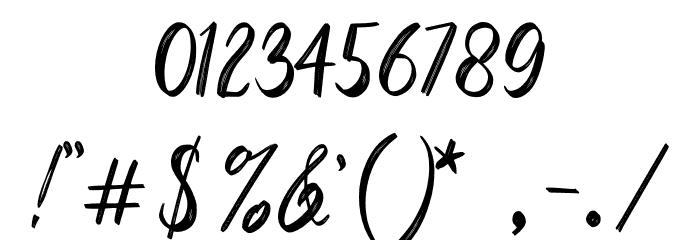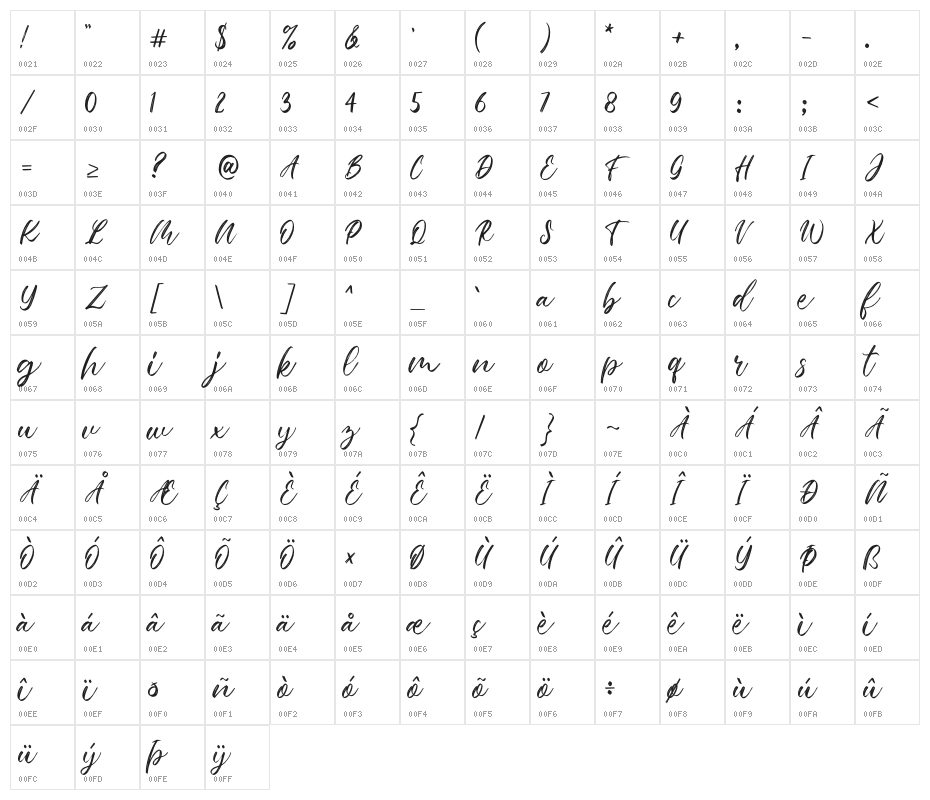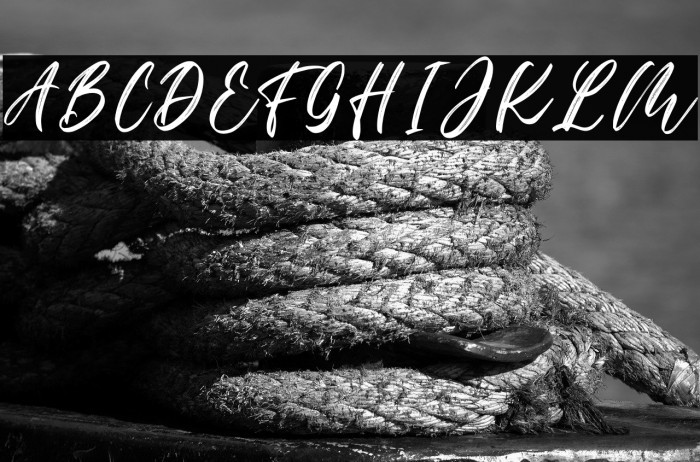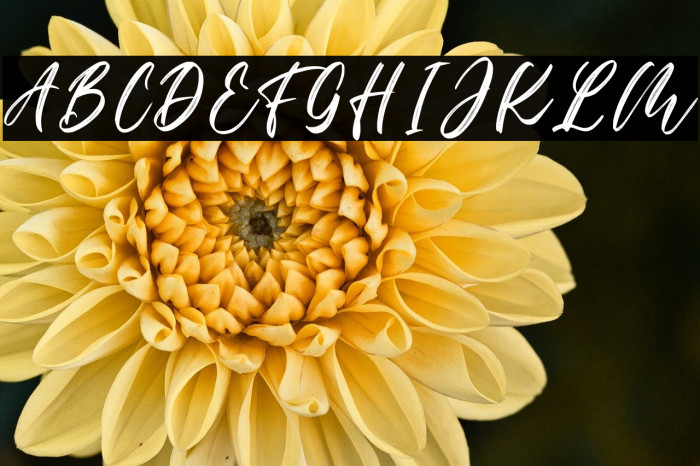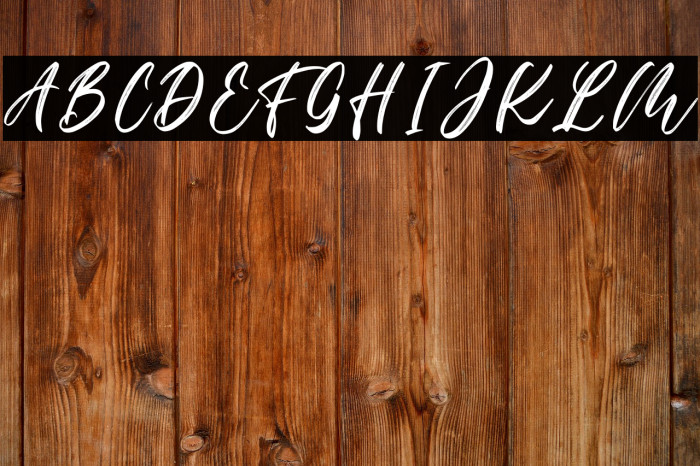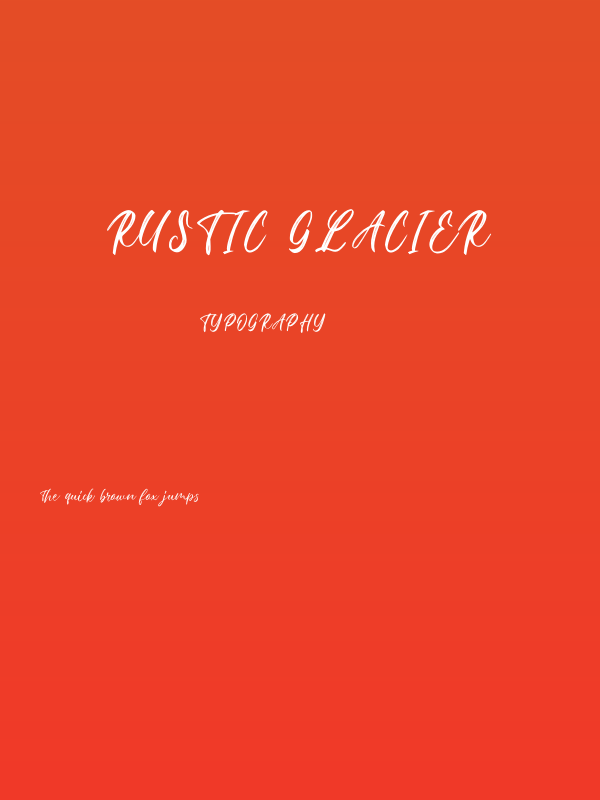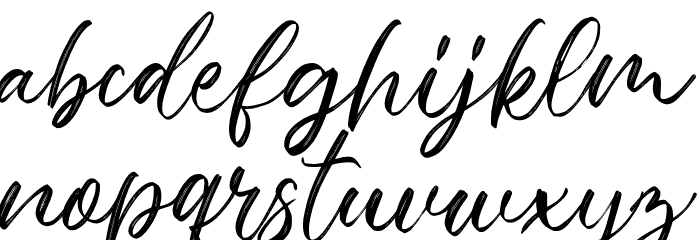
Rustic Glacier Font
Rustic Glacier Description
This font features a flowing, cursive style that exudes a sense of elegance and sophistication. The letters are connected with smooth, sweeping strokes, giving it a handwritten appearance. The uppercase letters are bold and prominent, while the lowercase letters maintain a consistent flow, enhancing readability. The numerals are well-integrated into the design, matching the overall aesthetic. Special characters are thoughtfully crafted, maintaining the font's cohesive style. This font is ideal for projects that require a personal touch, such as invitations, greeting cards, or branding materials.